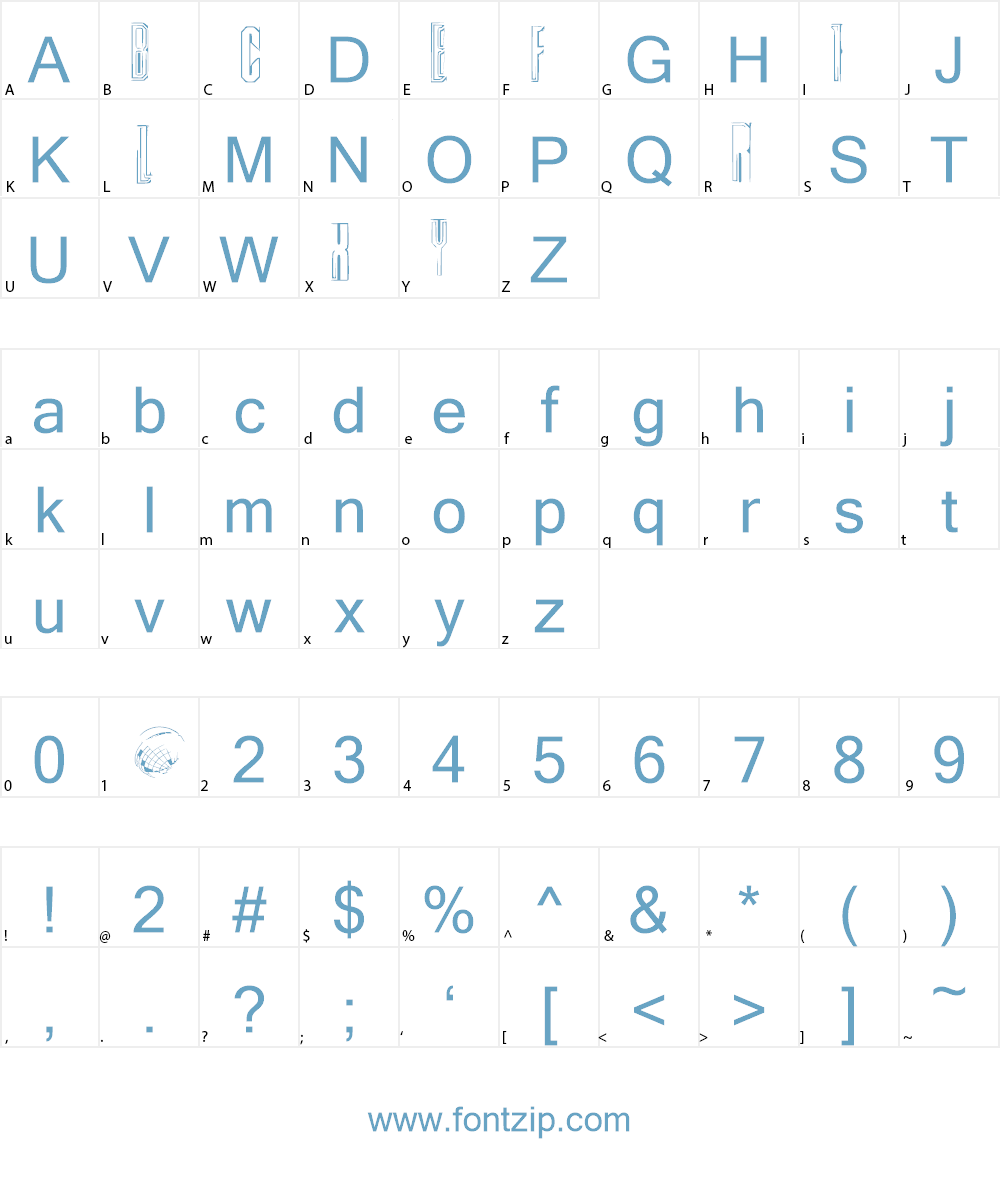
I found the CyberFlix logo to be very interesting. After CyberFlix closed its doors in 1998, the logo was still able to be found on the web. All credits go to CyberFlix Incorporated. Please feel free to use this font if you wish to have a copy of the logo.